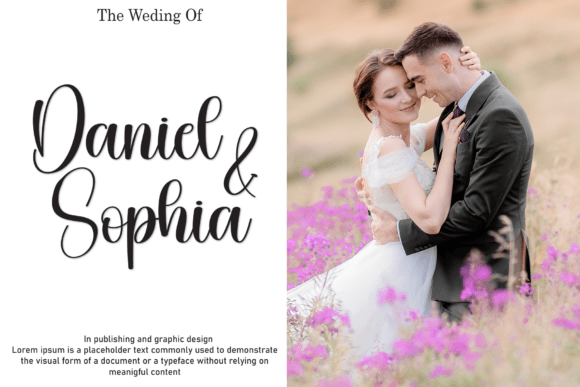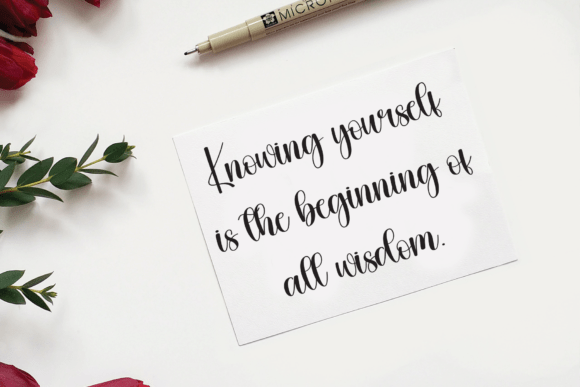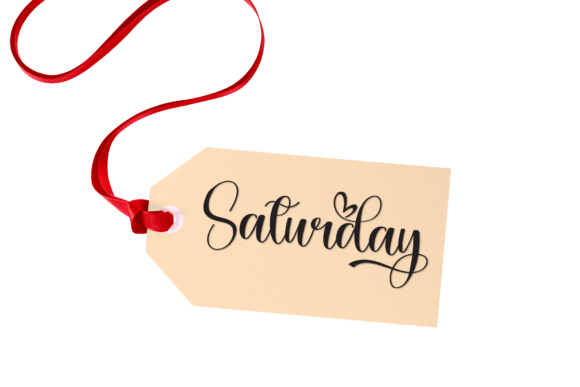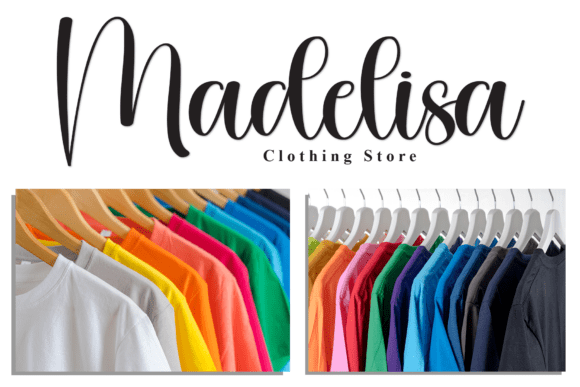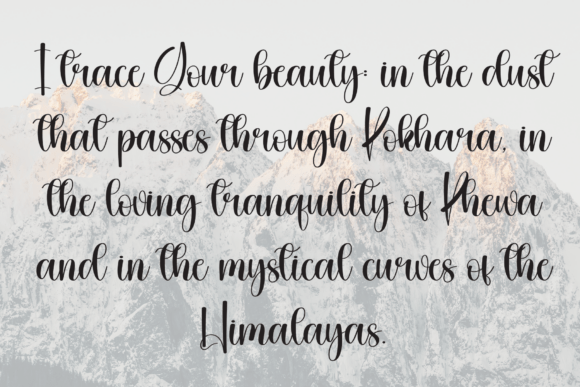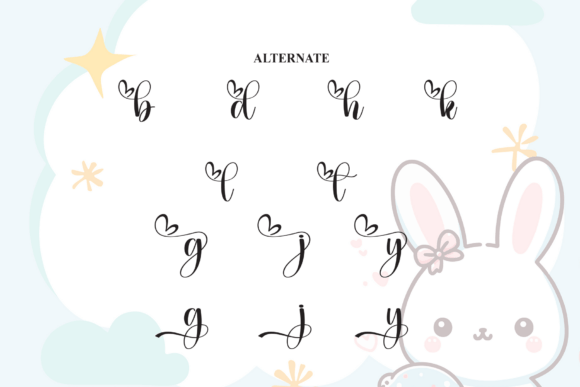
The Joy of Design: Discovering the Baby Bunny Font
As designers, we’ve all been there – staring at a blank canvas, searching for the perfect font to bring our creative vision to life. And then, like a breath of fresh air, it hits us: the perfect font that captures the essence of our project. For me, that moment came when I stumbled upon the Baby Bunny font. Its adorable script and whimsical charm instantly transported me to a world of innocence and joy, making it the perfect choice for designing newborn announcements and nursery artwork.
The Baby Bunny Font is a modern typeface that seamlessly balances legibility with a playful spirit, making it an invaluable asset for designers. Whether you’re creating custom name signs, birthday party invitations, or playful branding for boutiques, this font is sure to bring a touch of magic to your designs.
Baby Bunny Font Key Features
- Font Family: Baby Bunny Font
- Unique Characteristics: Whimsical, hand-drawn design, ideal for children’s books, nursery decor, and other playful applications
Designer Review: Baby Bunny Font
First off, I’d like to say that I love the playful and whimsical feel of the Baby Bunny Font ✨. The rounded edges and soft curves make it perfect for creating a friendly and approachable atmosphere. It’s a great choice for kids’ books, nursery decor, and other designs that require a sense of innocence and wonder.
The font also features a range of fun and quirky characters, including some adorable animals and symbols ✨. This adds an extra layer of personality to the font and makes it more engaging for the viewer.
While the Baby Bunny Font is a lot of fun, there are a few limitations to be aware of ⚠️. For one, the font may be too childlike for some designs, and it may not be suitable for more formal or professional projects.
Additionally, the font’s quirky characters and irregular shapes may make it more difficult to read in certain contexts ⚠️. This could be a problem for longer blocks of text or for designs that require a lot of precision.
Overall, I think the Baby Bunny Font is a great choice for designers who want to add a touch of whimsy and fun to their projects ✨. While it may have some limitations, it’s a versatile and engaging font that can add a lot of personality to a design.
- Playful and whimsical feel
- Range of fun and quirky characters
- Soft and rounded edges
- Suitable for kids’ books, nursery decor, and other designs that require a sense of innocence and wonder
The Baby Bunny Font is perfect for creating playful and whimsical designs, such as:
- Children’s birthday invitations and party decorations
- Infant and toddler product labels and packaging
- Fun and creative social media graphics